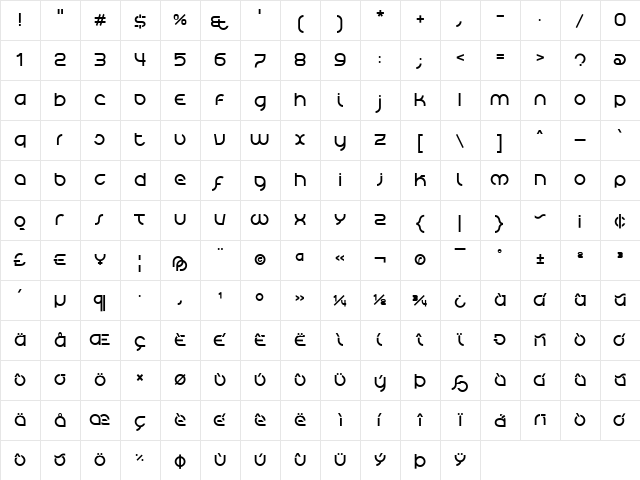
Tierra Blanca Regular
| Foundry | Alejandro Paul |
Design Context for Tierra Blanca Typeface
Tierra Blanca is a composed and adaptable typeface that performs quietly and consistently across a wide range of design contexts.